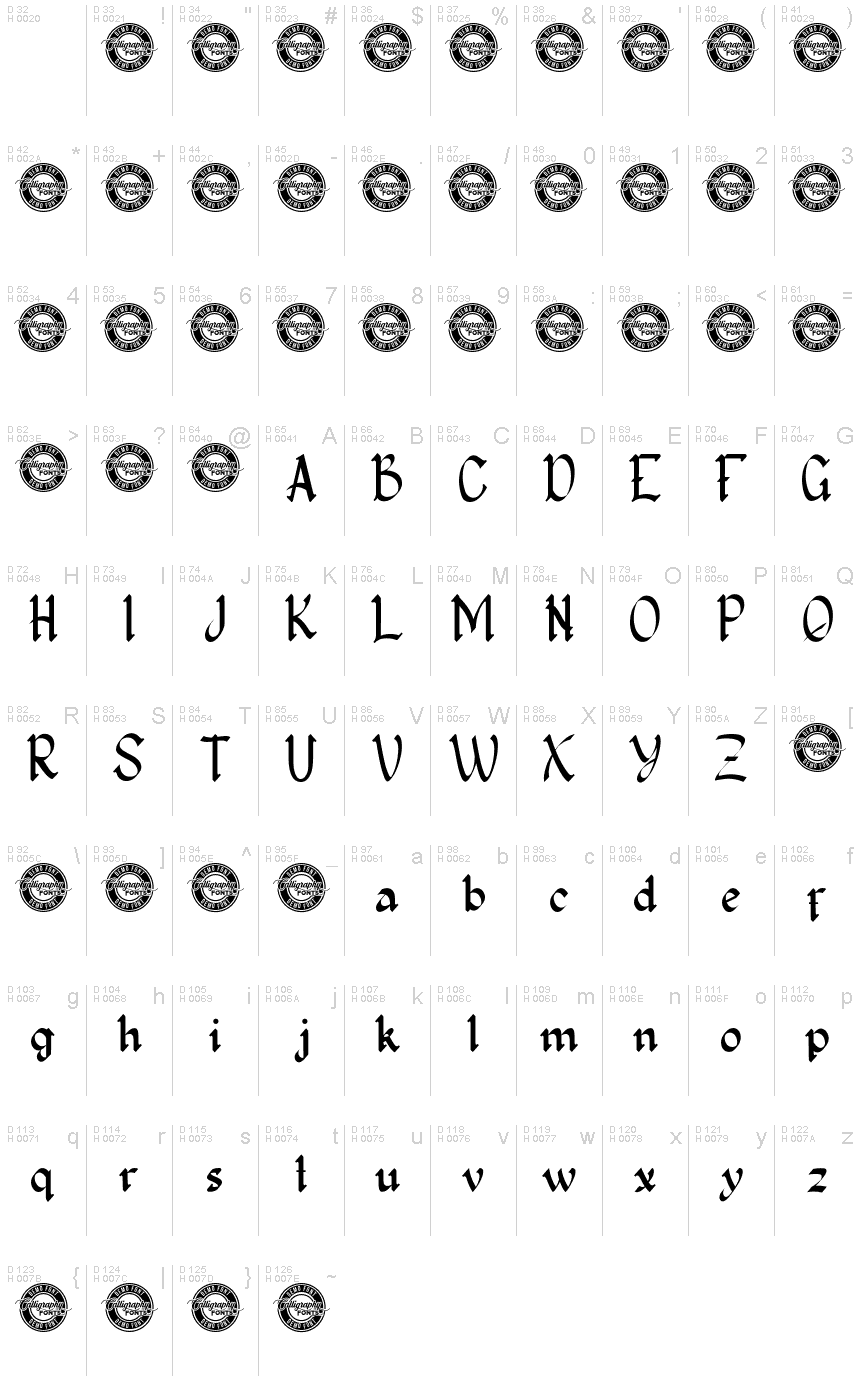
Love Series Demo
Love Series is a stunning display font designed by Calligraphy Fonts. The semi-light weight of this font makes it perfect for projects that require a delicate touch, such as wedding invitations, greeting cards, and love letters. The exquisite hand-drawn style of Love Series adds an air of elegance and sophistication to any design project. Whether you’re creating a logo for a luxury brand or designing packaging for high-end products, Love Series will give your work the refined touch it needs. This versatile font is ideal for any project that requires an artistic flair and a touch of romance.